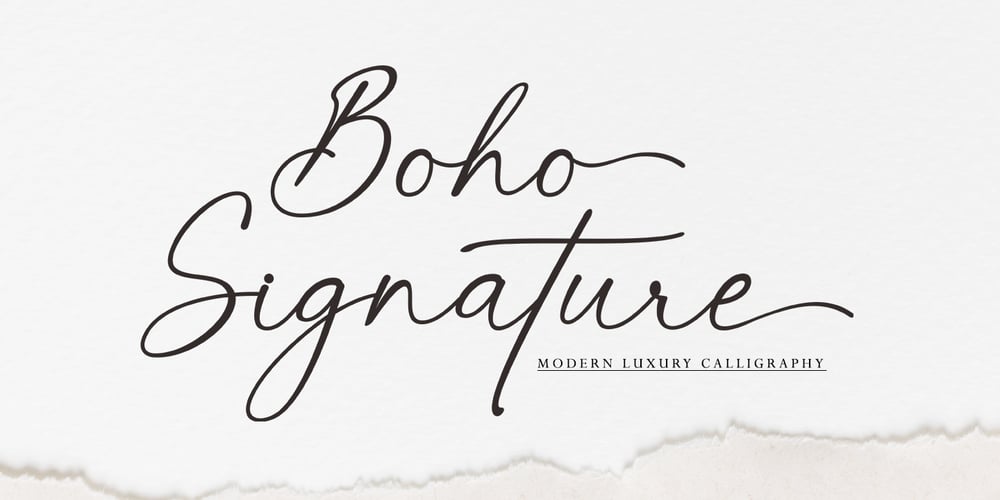
Boho Signature
Boho Signature font
Boho Signature Font Family was designed by Rahmad Rizky and published by Rhd Studio. Boho Signature contains 1 styles and family package options. Boho Signature is a handwritten script font that offers an elegant and personal touch to each character. Inspired by handmade strokes, this font brings a natural handwritten feel that is warm and inviting. Each letter displays uniqueness in every curve and stroke, creating a relaxed yet refined atmosphere. Ideal for design projects that seek a personal touch, such as wedding invitations, greeting cards, brand logos and other design elements that require a warm and elegant atmosphere. “Boho Signature” is the perfect choice for anyone looking to inject a human touch into their designs using this beautiful handwritten font.